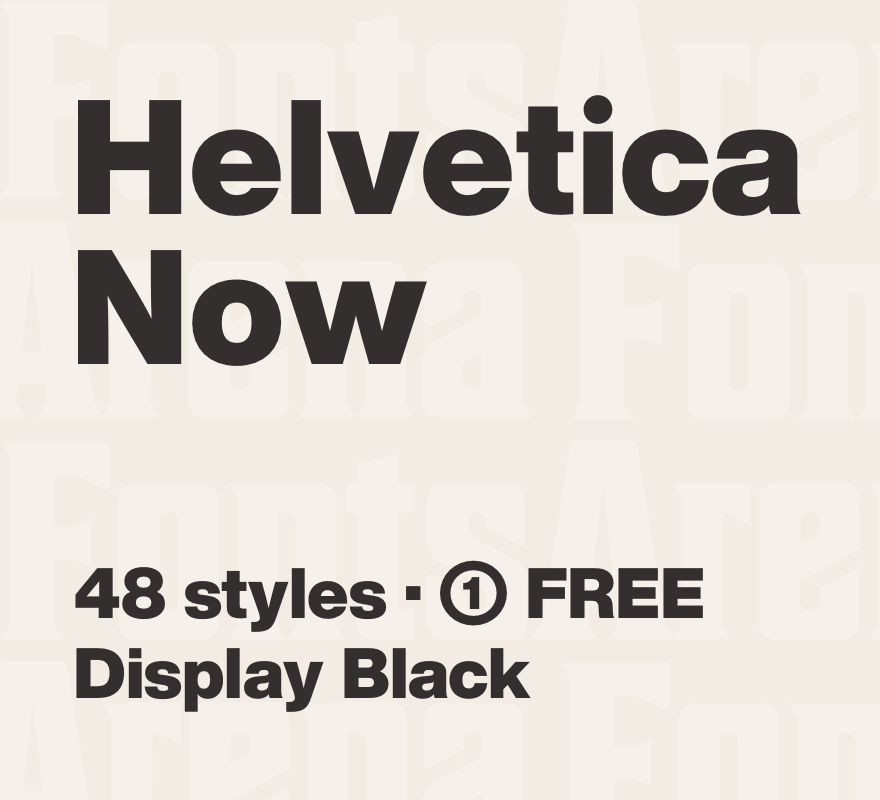
Piu Veloce Helvetica Neue Bold Italic Font Copy And Paste
Helvetica bold font copy paste. Perhaps fonts like arial, helvetica, or comic sans. Written by dafont july 16, 2021. A font is a graphical representation of letters, numbers and symbols.
Simply copy & paste helvetica fonts. The most used fonts for the smaller text are franklin gothic and helvetica. Also you can download related fonts:
Once you click the generate button you’ll have a list of fonts you need. Bold font is a set of type characters that are darker and heavier than normal characters. Helvetica bold is a variation of the standard helvetica font developed by swiss designer max miedinger in 1957.
Font generator copy and paste is a straightforward generator that you can use to make textual styles for instagram. Helvetica 96 black italic, helvetica neue bold italic, helvetica neue bold, helvetica neue condensed black, helvetica neue condensed bold. Font has bold italic style.
Helvetica font generator copy and paste discover and customize the font coolvetica and other similar fonts, ready to s… read more helvetica font generator copy and paste I am only able to replace it with helvetica neue (tt) condensed bold. You might have initially thought that this converter generates a bold font, but this is not the case.
For your fb name), twitter, instagram, tumblr and other social media posts and statuses. The font family is helvetica bq. Helvetica neue font has a dark version its the helvetica neue bold.
Helvetica struggle bold font ttf for windows. If you want to highlight a word or sentence, then you can transform them into bold. The full helvetica now family includes 48 fonts in 3 distinct optical sizes:
Why not type something in comic sans on word and then copy and paste it into, say, instagram? When i get a document from bob, and it says that helvetica neue (tt) bold is missing; Every single glyph has been redesigned, preserving helvetica’s “swissness”, while making it meet modern demands and standards.
Monotype just launched a new and improved version of helvetica. Once they click the generate button, they will have access to a list of fonts they need. These fonts are quite suitable to use in tumblr bio, instagram bio, facebook, twitter, snapchat or any other social media.
Your selections will remain as you look for another font for another section of this preview. Helvetica font generator tool will let you convert simple and normal font style into your desired font. Bold font font free download | free fonts vault.
Helvetica is free that you can apply to your future projects. Please, talk with the author for commercial use or for any support. Also you can download related fonts:
Bold fonts are usually used in the header section. Helvetica fonts are free, and fontsrack users can use these fonts for online halvetic font generation. Simply type or copy the normal text into the blank text field.
About the font helvetica medium italic. Helvetica font generator at fontsrack. Another sub heading in helvetica.